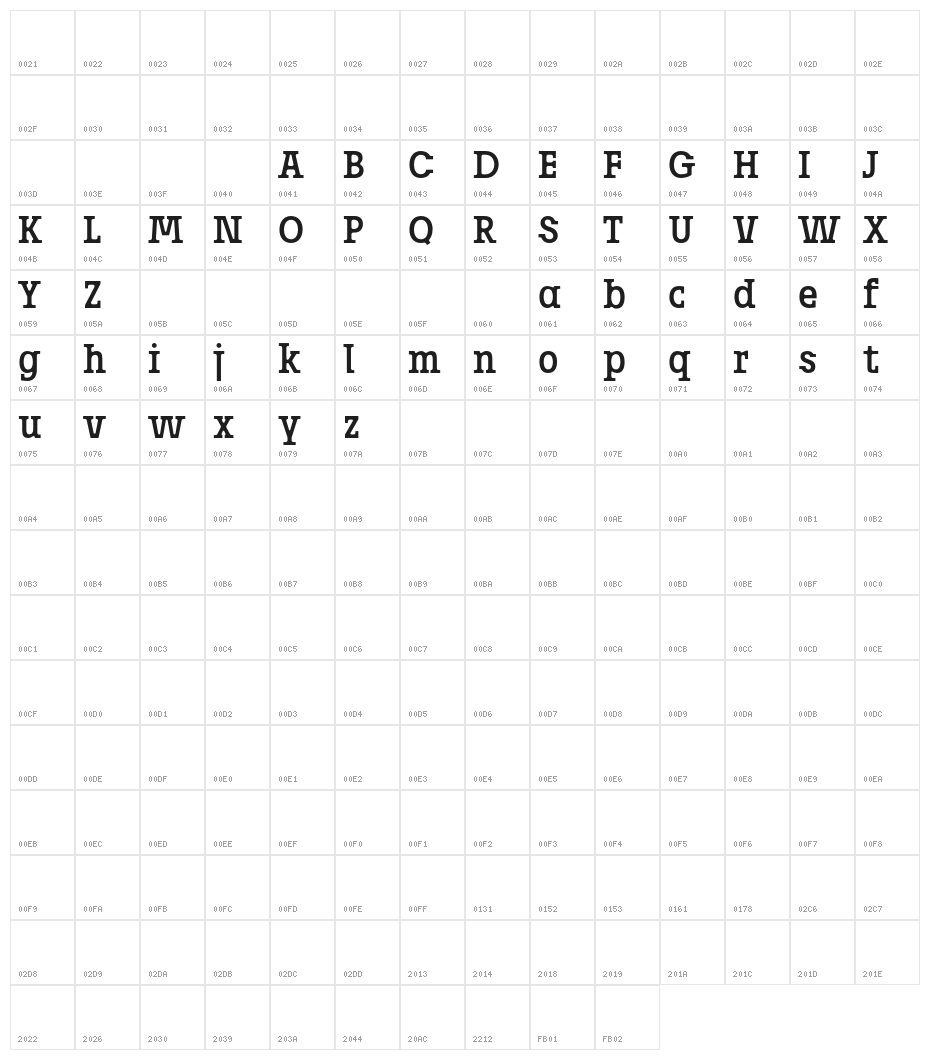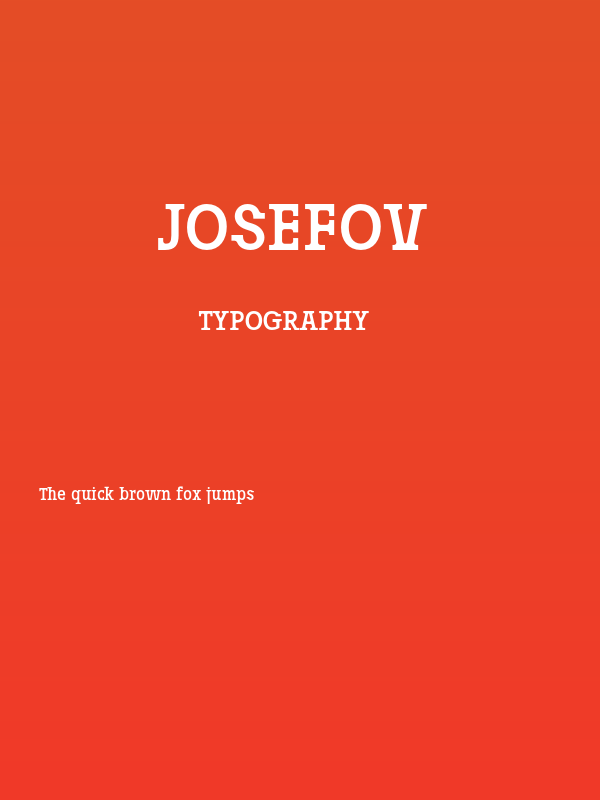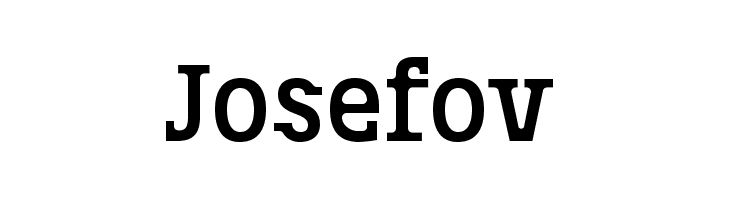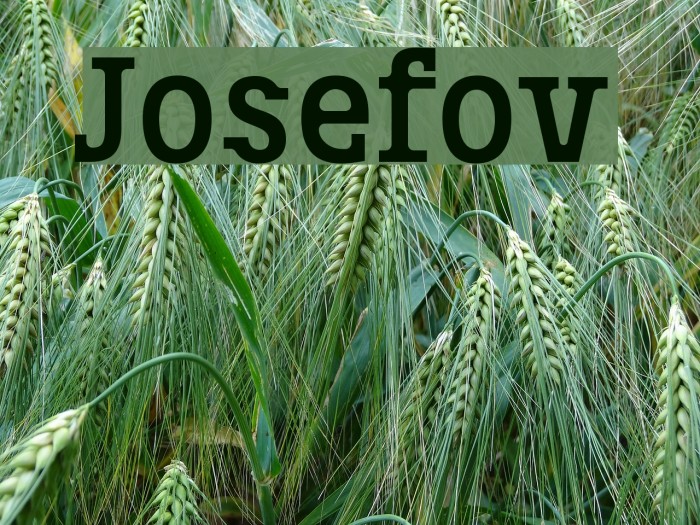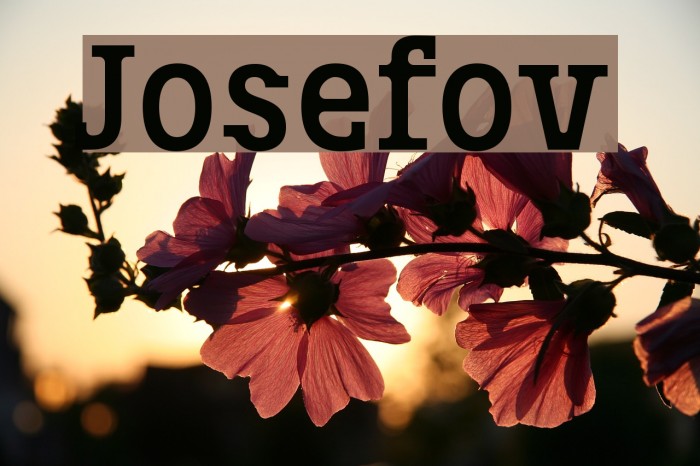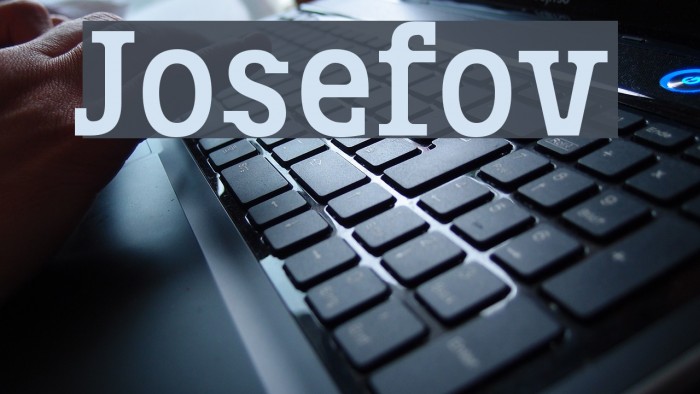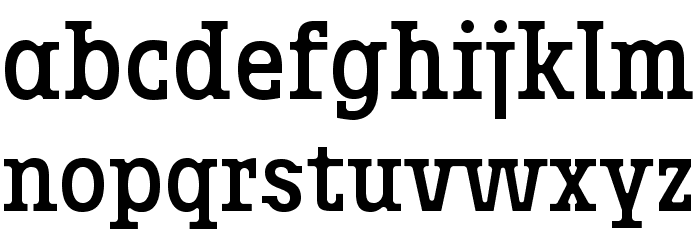
Josefov Font
This font exhibits a bold and robust slab serif style, characterized by thick, block-like serifs that provide a strong and authoritative presence. The uppercase letters are uniform in height, with a consistent stroke width that enhances readability and impact. The lowercase letters maintain a similar weight, ensuring a cohesive look across different text sizes. The numerals are clear and legible, matching the boldness of the alphabetic characters. Special characters are distinct and well-defined, making them suitable for a variety of uses. Overall, this font combines traditional serif elements with a modern twist, making it versatile for both digital and print media.
| Proposed Projects | Ideal for headlines, posters, branding, and editorial design where a strong, authoritative presence is desired. |